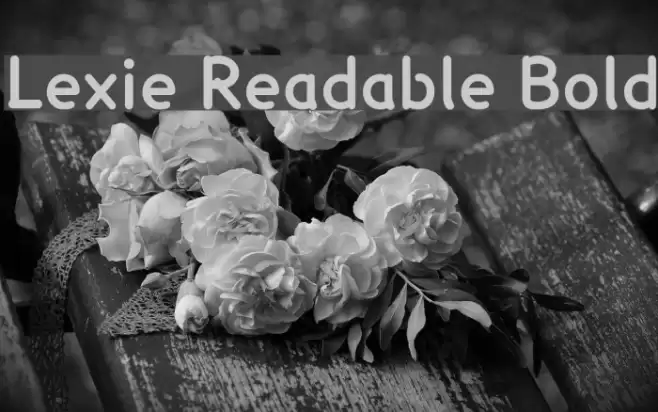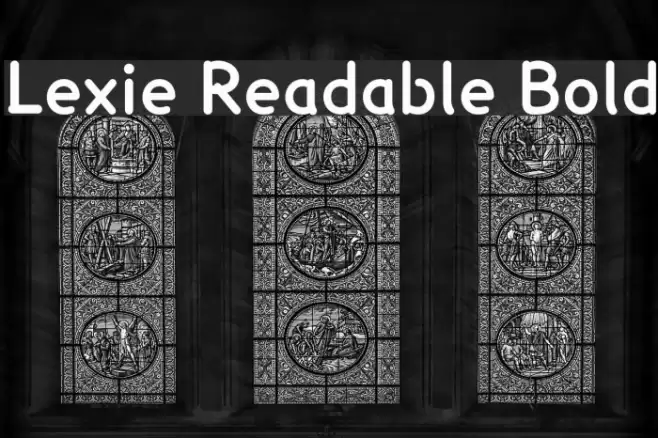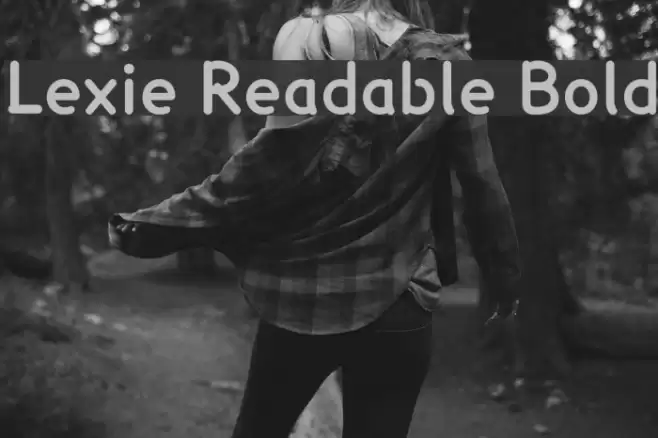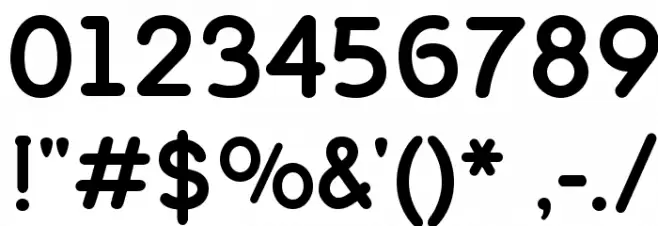
Lexie Readable Bold Font
Lexie Readable Bold Description
This font features a bold and rounded sans-serif style, emphasizing readability and clarity. The characters are well-proportioned with a consistent stroke width, making it highly legible even at smaller sizes. The rounded edges give it a friendly and approachable appearance, suitable for various applications. The numerals are clear and distinct, ensuring easy differentiation. Special characters are well-integrated, maintaining the overall aesthetic. This font's design is modern yet timeless, offering versatility across different media.
A bold, rounded sans-serif font with excellent readability and a friendly appearance from Uncategorized fonts.
- Proposed Projects: Ideal for educational materials, children's books, user interfaces, signage, and branding projects that require a clear and approachable typeface.